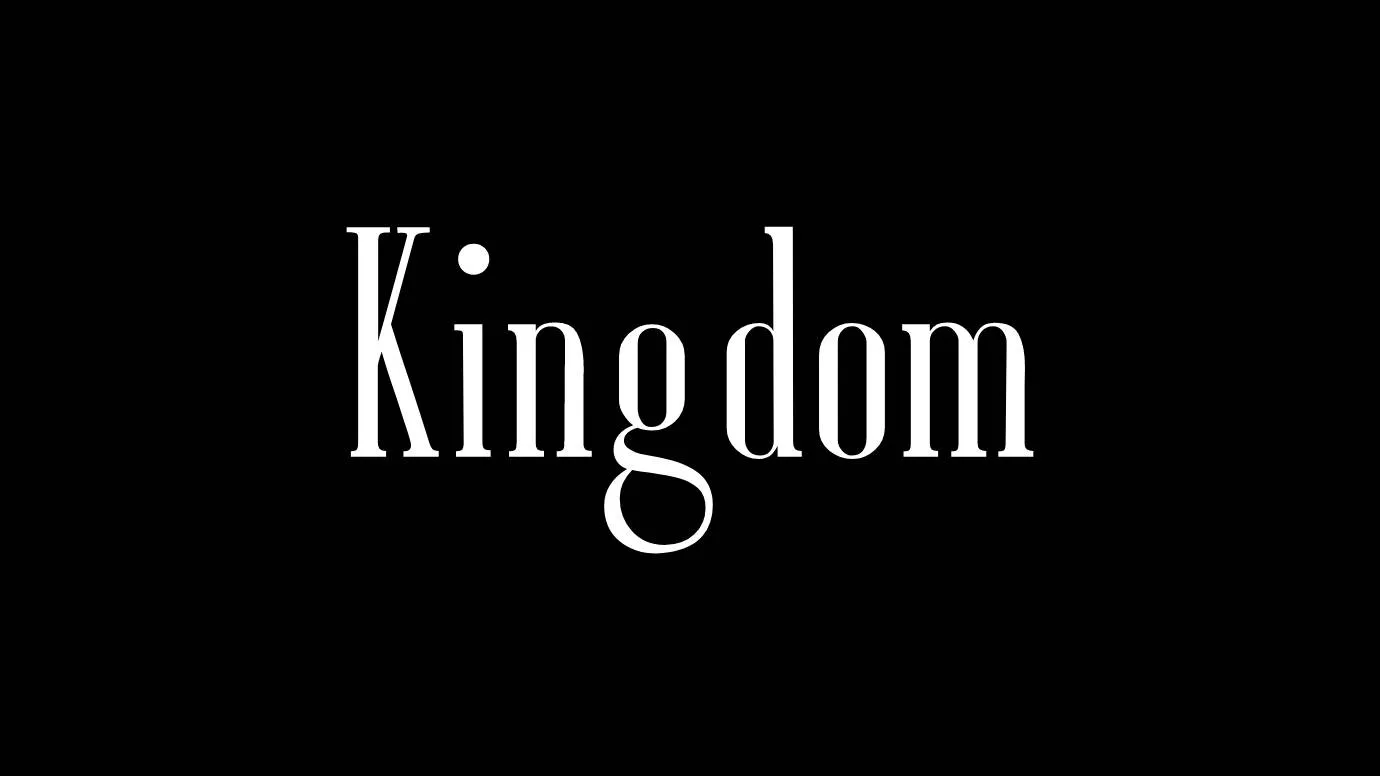
Kingdom Font Family
Kingdom Font Family was finally designed by Eafonts. This texture comes with small caps and stylistic alternates. It is a multilingual font that is so famous all over the world. Due to its freshness and readable look, its users increase day after day.
Kingdom Font
NameKingdom Font
TypeSerif
DesignerEafonts